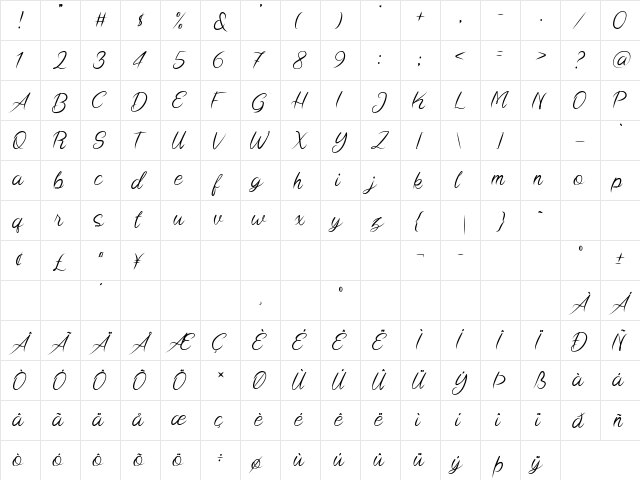
Brushline Regular
Design Context for Brushline Typeface
Brushline flows with the natural rhythm of handwritten lettering, making it ideal for designs that call for warmth and personal expression.
Font Pairing: Combine Brushline with a simple geometric sans for maximum contrast — the tension between flowing curves and clean structure is a classic typographic pairing.
Pro Tip: Pair Brushline with a clean sans-serif for supporting text. The contrast between fluid script and geometric structure creates an elegant typographic hierarchy.